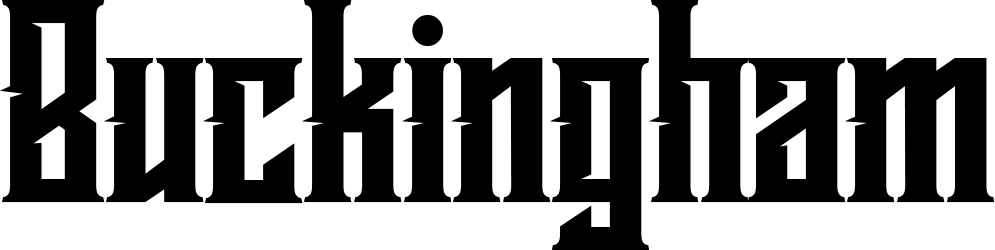
Buckingham Font
With sharp angles and clean cuts, Buckingham will not gonna look and feel out of place and odd in your Victorian-themed projects. It’s a rugged gothic font with modern undertones and you will have as many as three useful styles of it in this package.